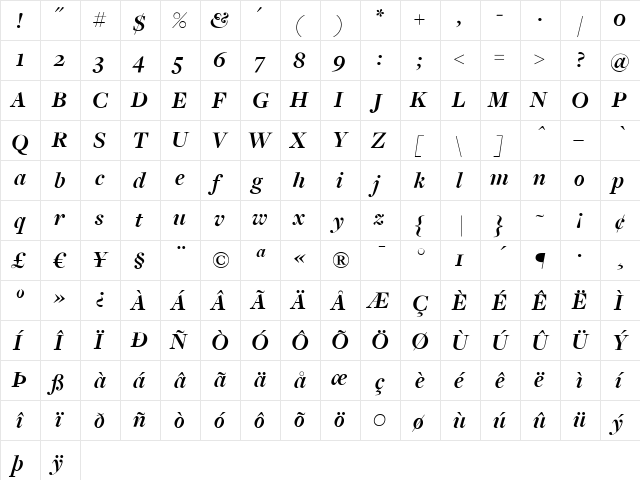
FreightDispBoldItalic Regular Font Preview
| Foundry | Joshua Darden & Phil's Fonts, Inc |
| Designer | Joshua Darden |
Design Context for FreightDispBoldItalic Typeface
FreightDispBoldItalic takes a measured approach to typography — its balanced proportions and neutral character make it a reliable workhorse for both digital and print work. The dynamic lean of this cut emphasises speed and emphasis in any layout. The heavy weight commands attention and anchors typographic hierarchies.